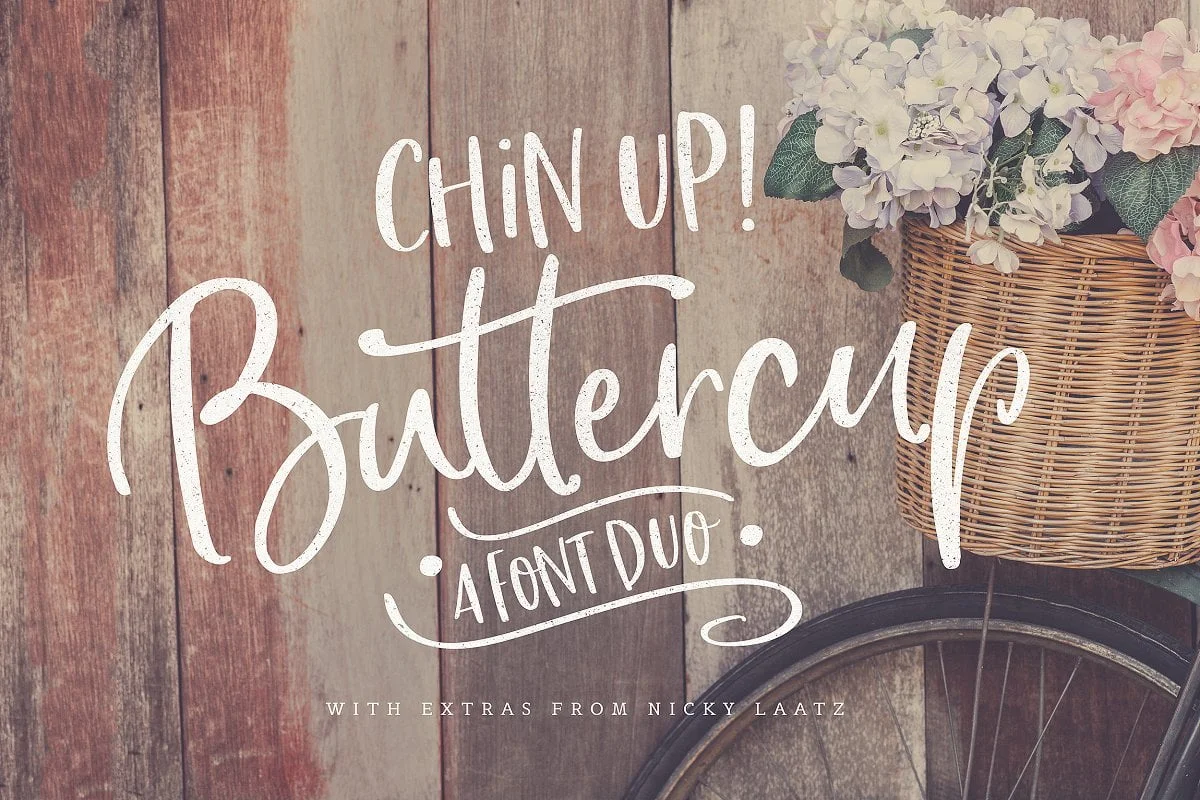
Chin Up Buttercup Font Duo Extras
Chin Up Buttercup Font Duo Extras is perfect for a wide range of design projects including motivational branding, inspirational quotes, uplifting greeting cards, positive lifestyle blogs, encouraging posters, cheerful packaging, wellness products, and heartwarming social media graphics. Its optimistic character makes it an exceptional choice for projects that spread positivity, encouragement, and emotional support.
What makes Chin Up Buttercup Font Duo Extras exciting is its powerful ability to deliver hope and encouragement through thoughtfully designed typography. The font features a complementary duo of handwritten styles along with decorative extras that work together harmoniously to create emotionally resonant designs. Its uplifting personality radiates warmth, compassion, and genuine care, making it perfect for brands and creators who want to inspire, motivate, and bring comfort to their audiences.
Chin Up Buttercup Font Duo Extras comes in multiple font families including Script Regular, Sans Serif companion, Bold variations, Ornaments, Swashes, and decorative elements. These comprehensive options allow designers to create layered, expressive compositions with professional polish while maintaining the authentic, heartfelt quality that makes encouraging messages truly impactful.